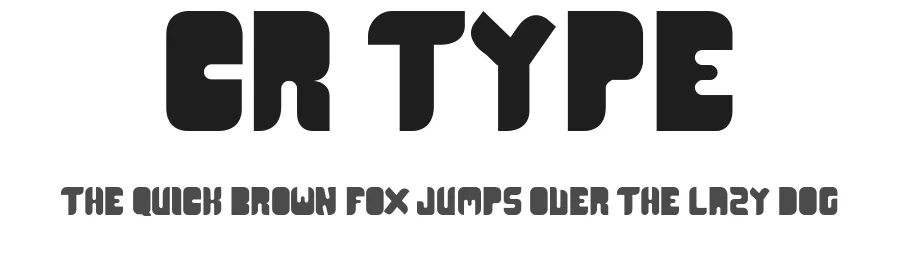
About Super Blocky Font
Super Blocky Specifications
Super Blocky supports 303 languages.
Super Blocky Font is a decorative font that shines as a display or heading face. Pair it with a clean sans-serif or serif font for body text β the contrast creates a clear hierarchy while the two styles stay balanced and easy to read.
Super Blocky Font
by fsuarez913